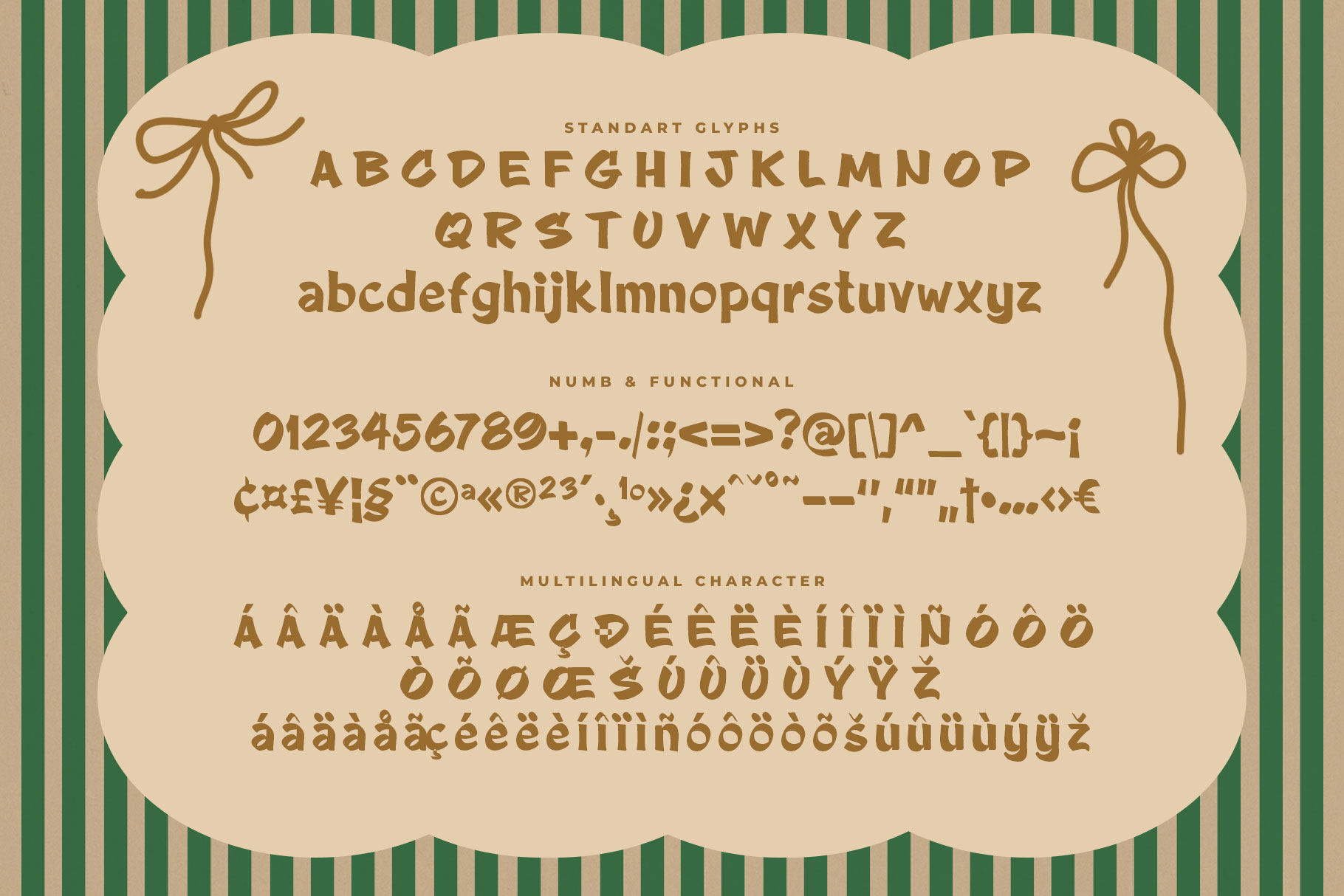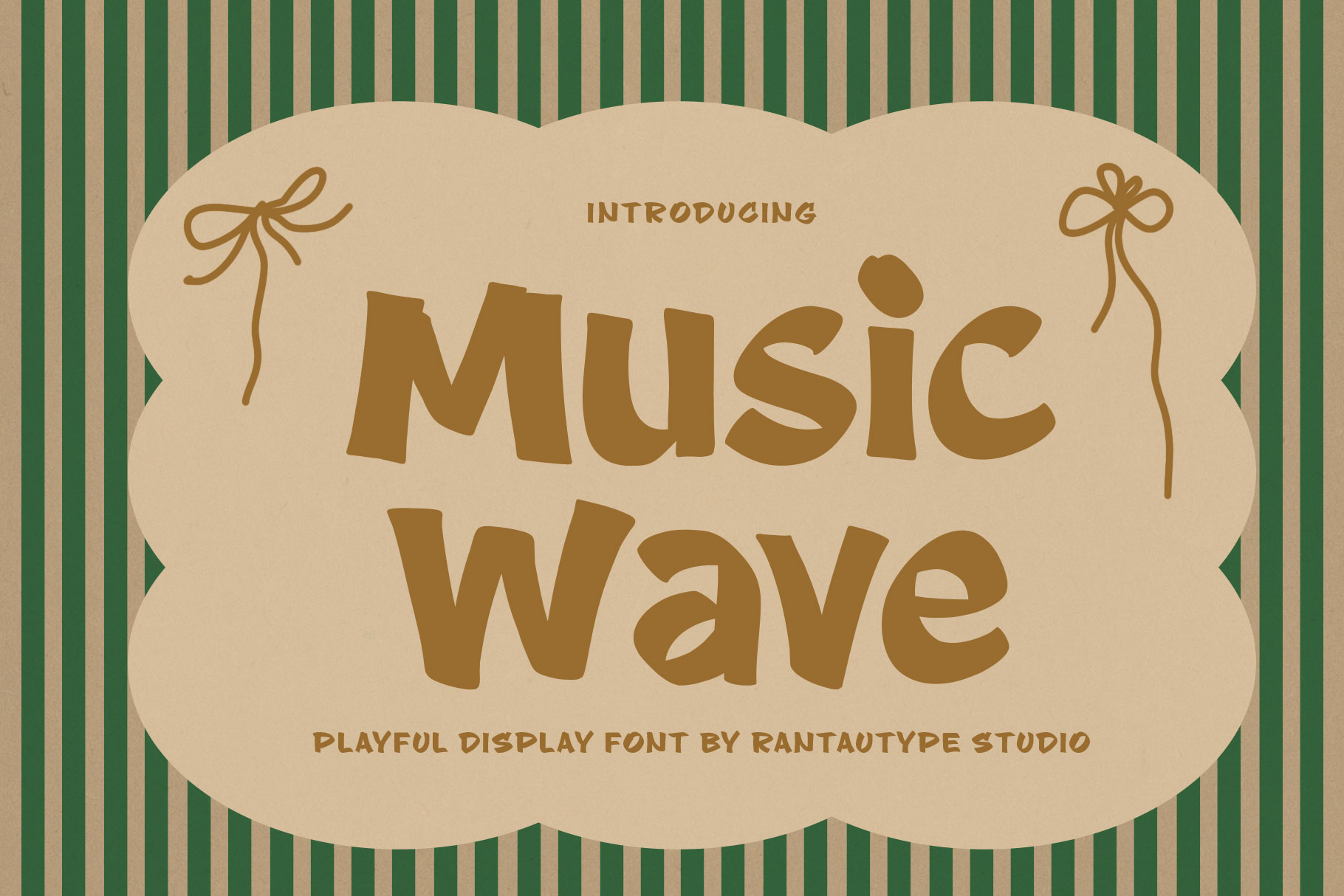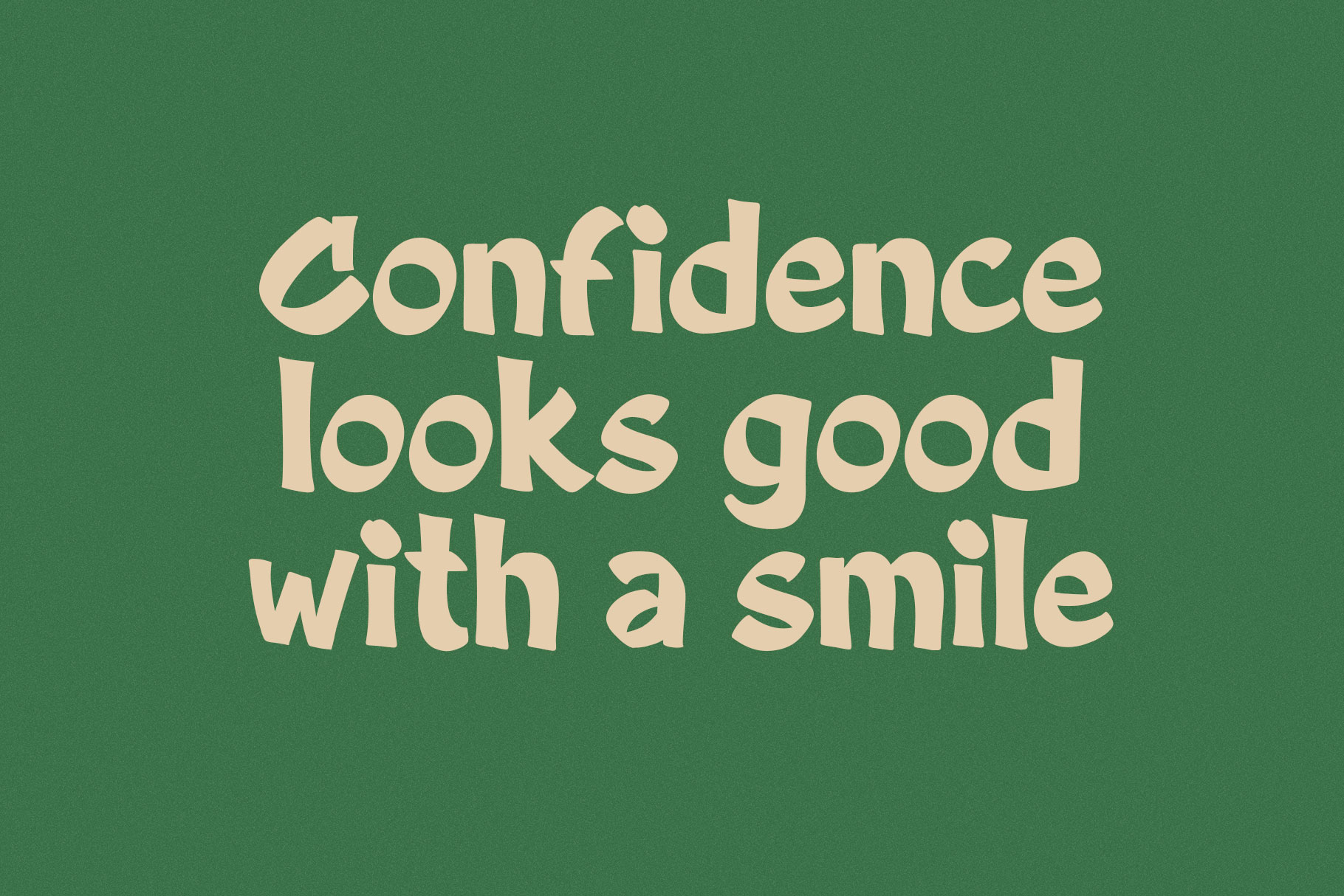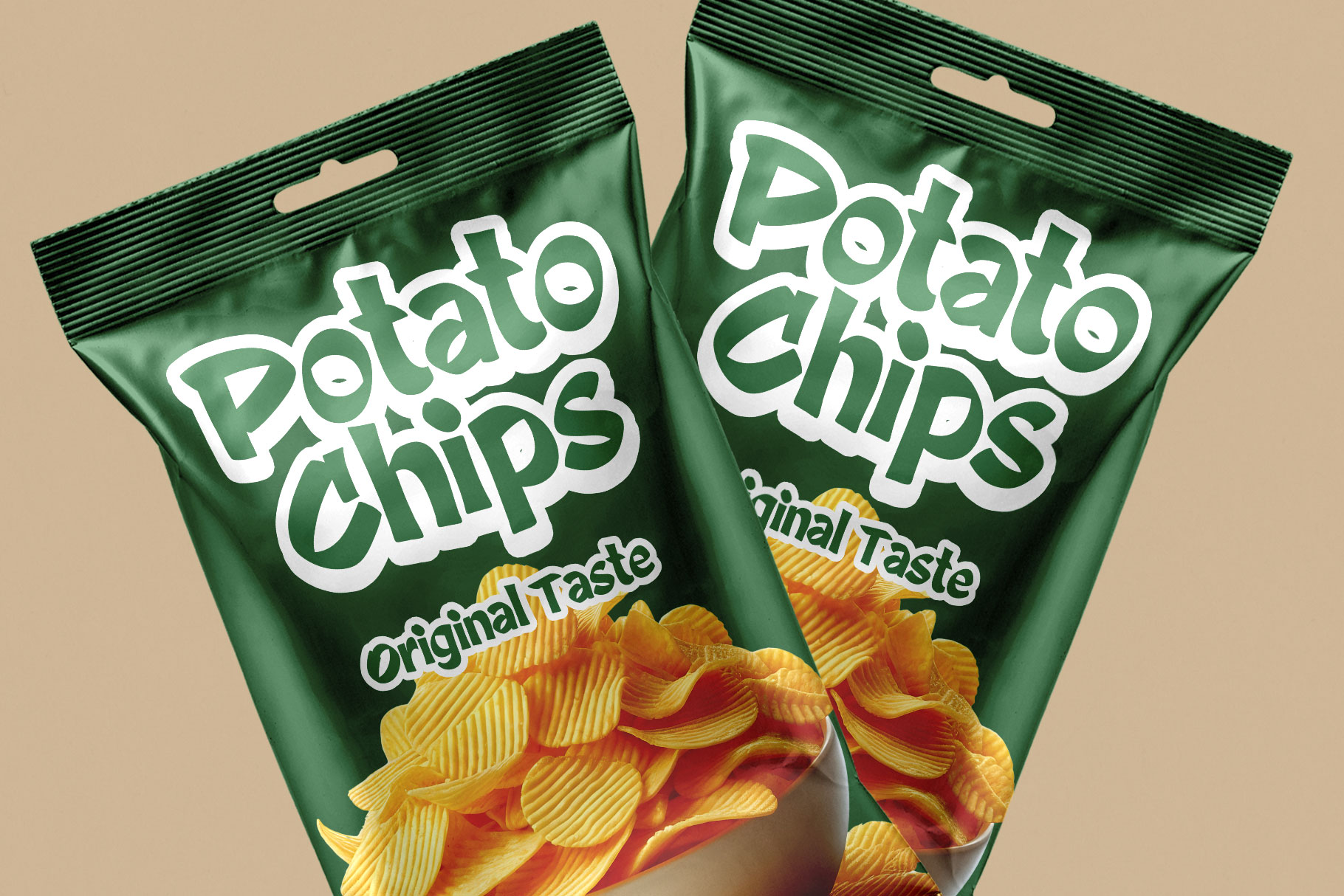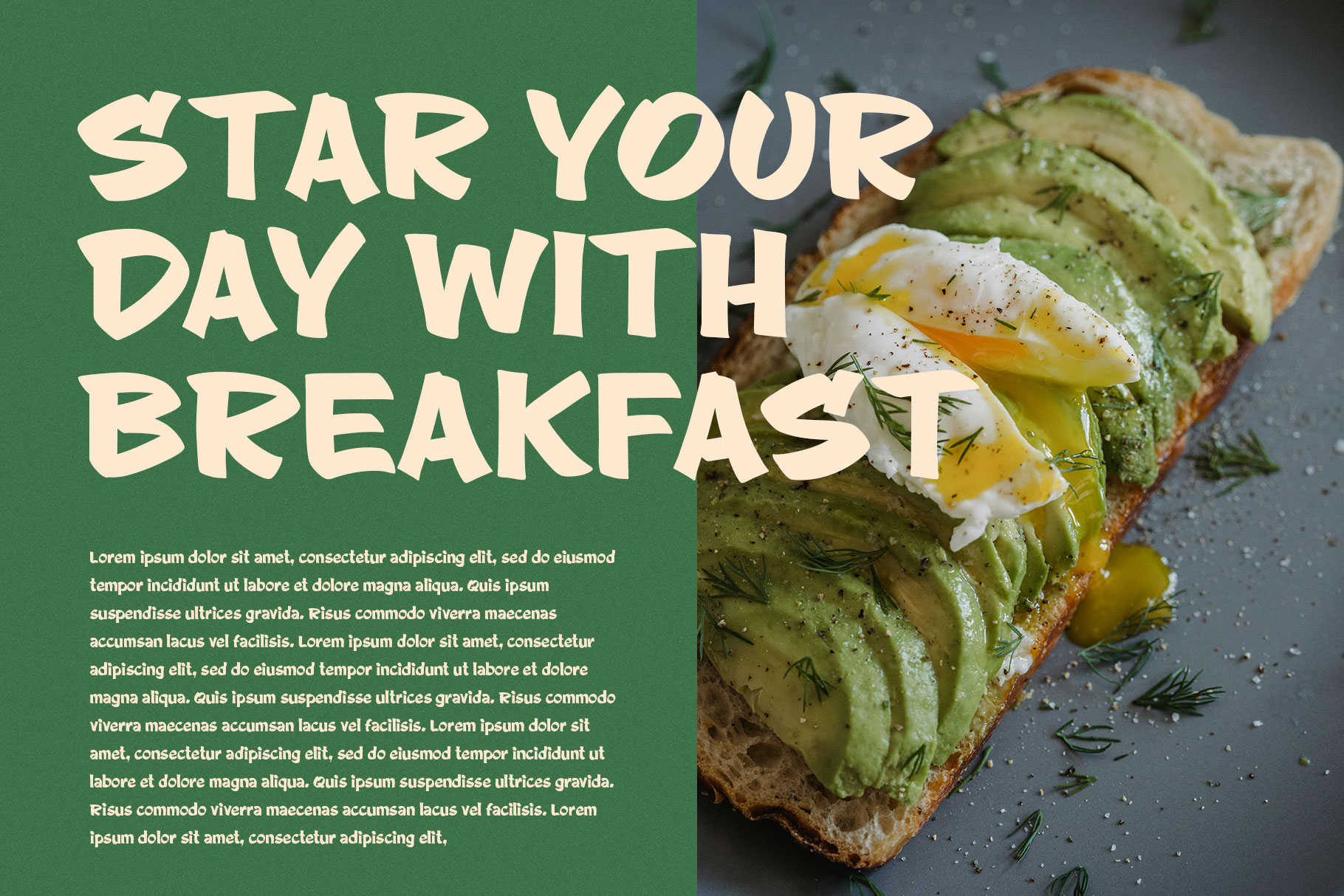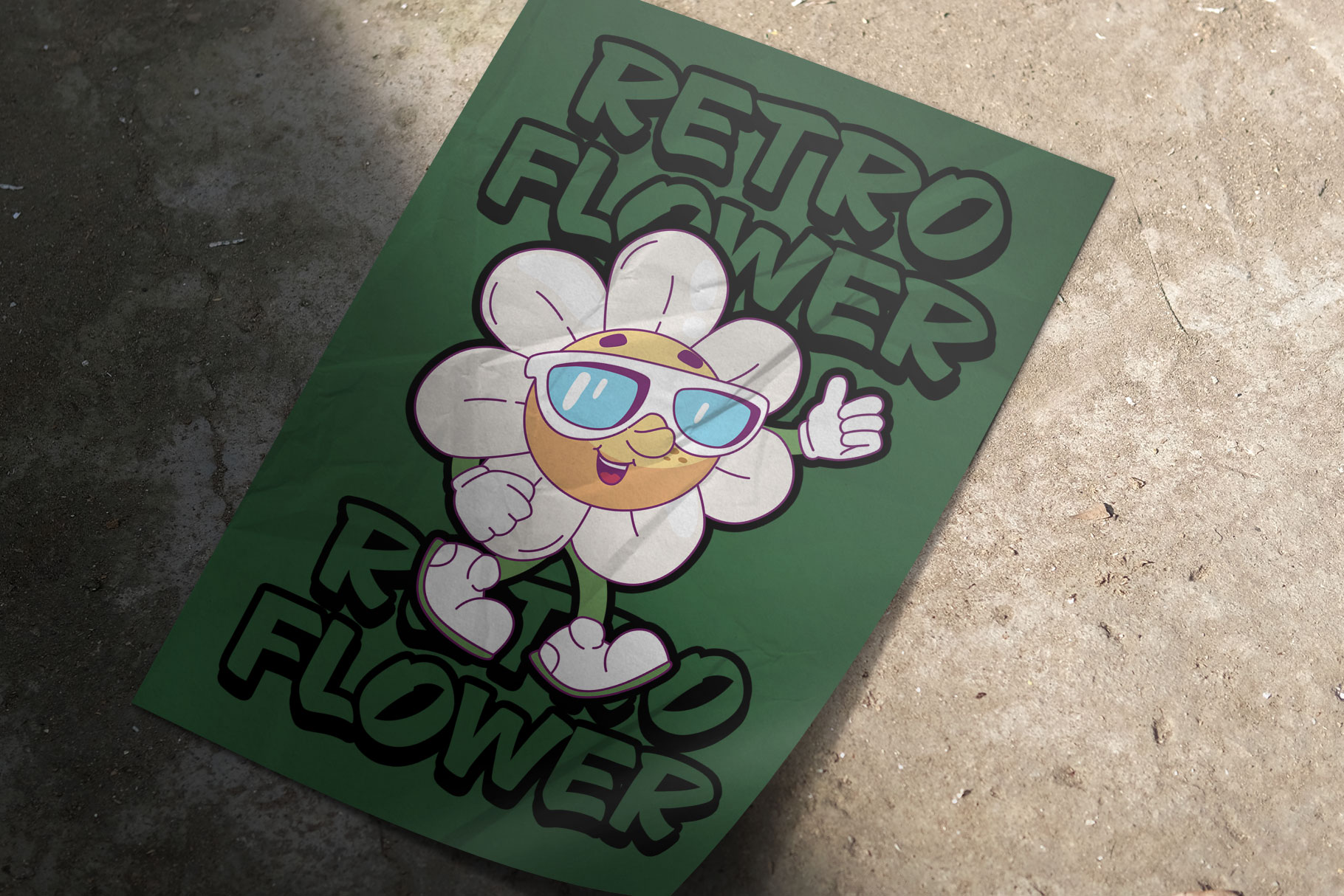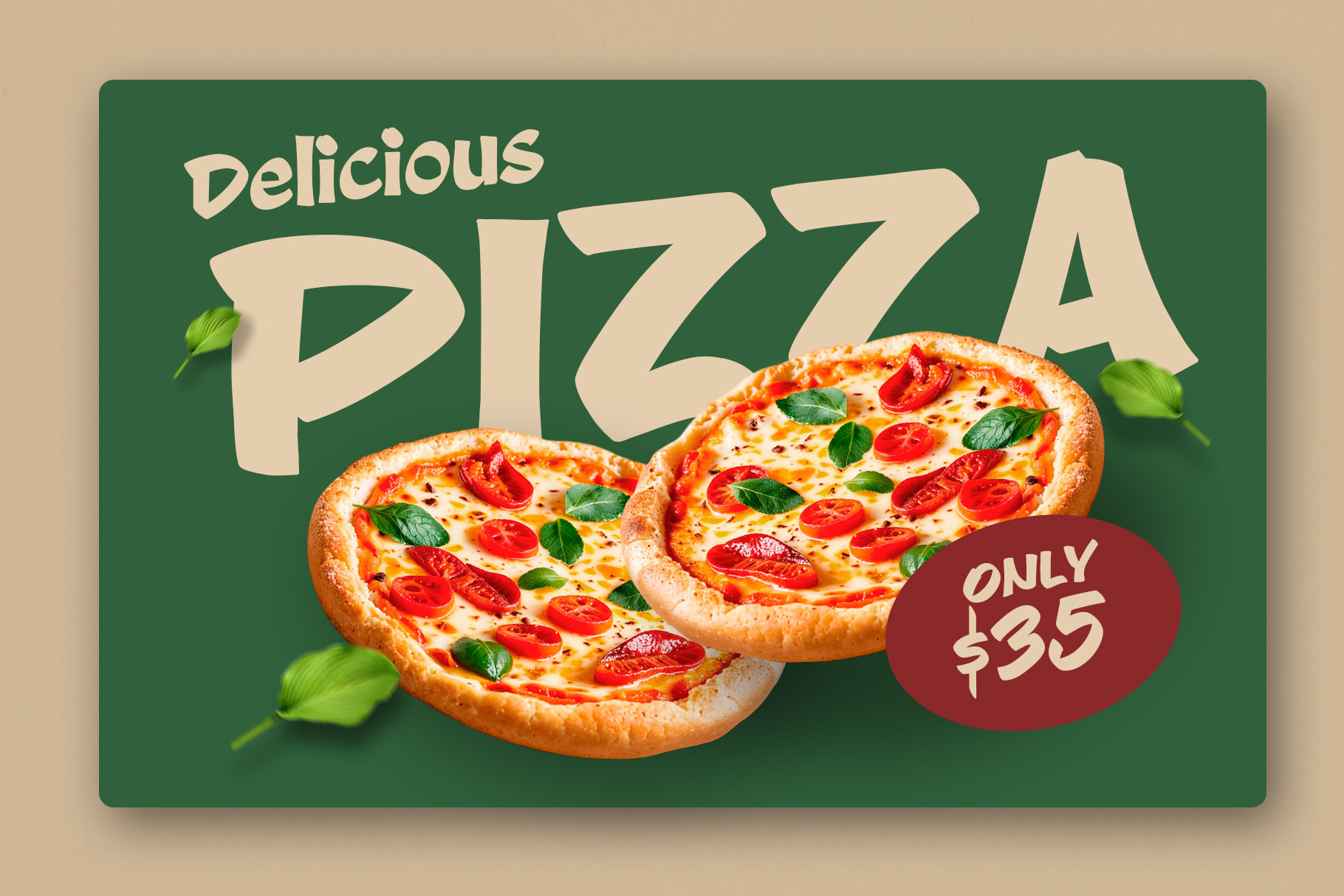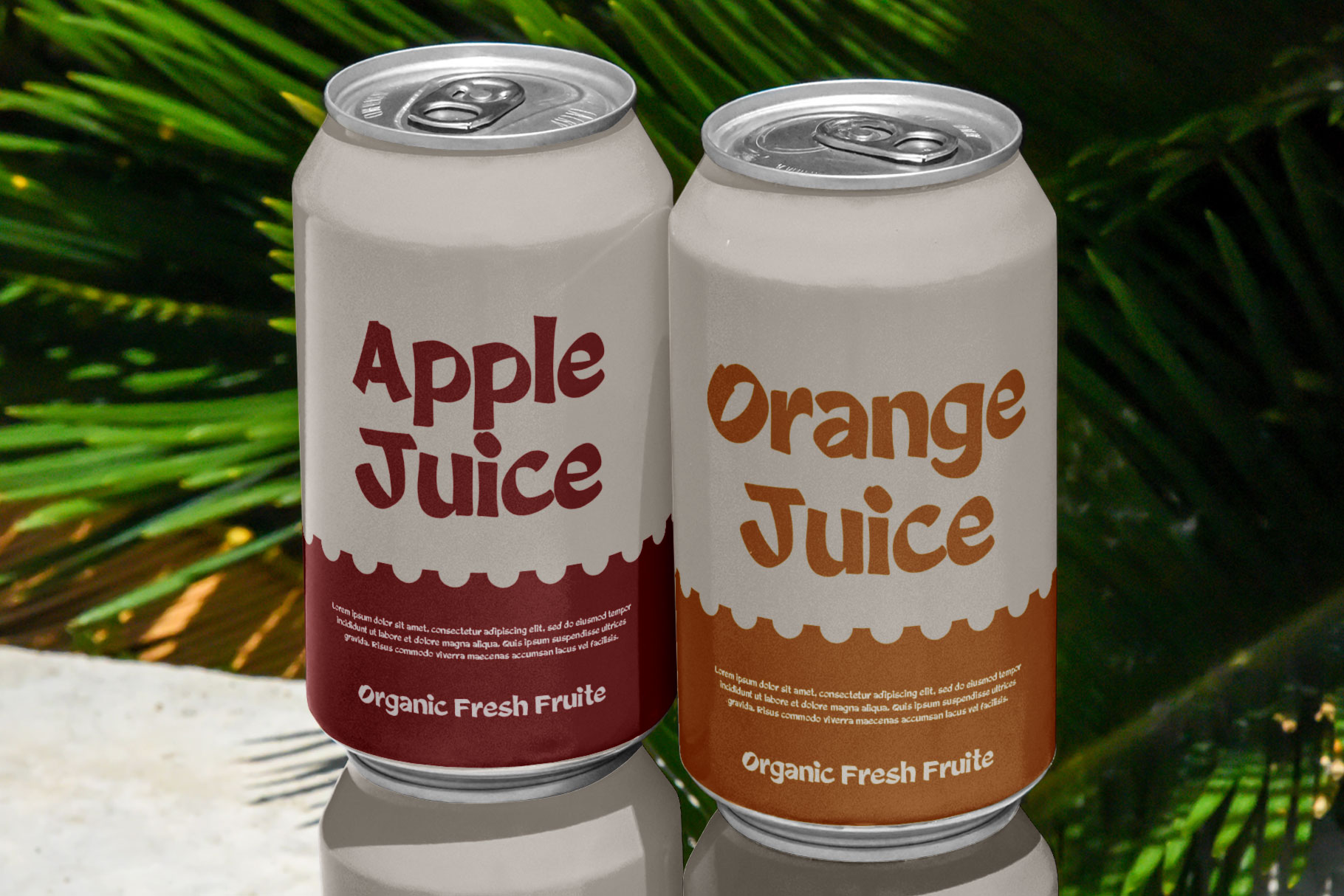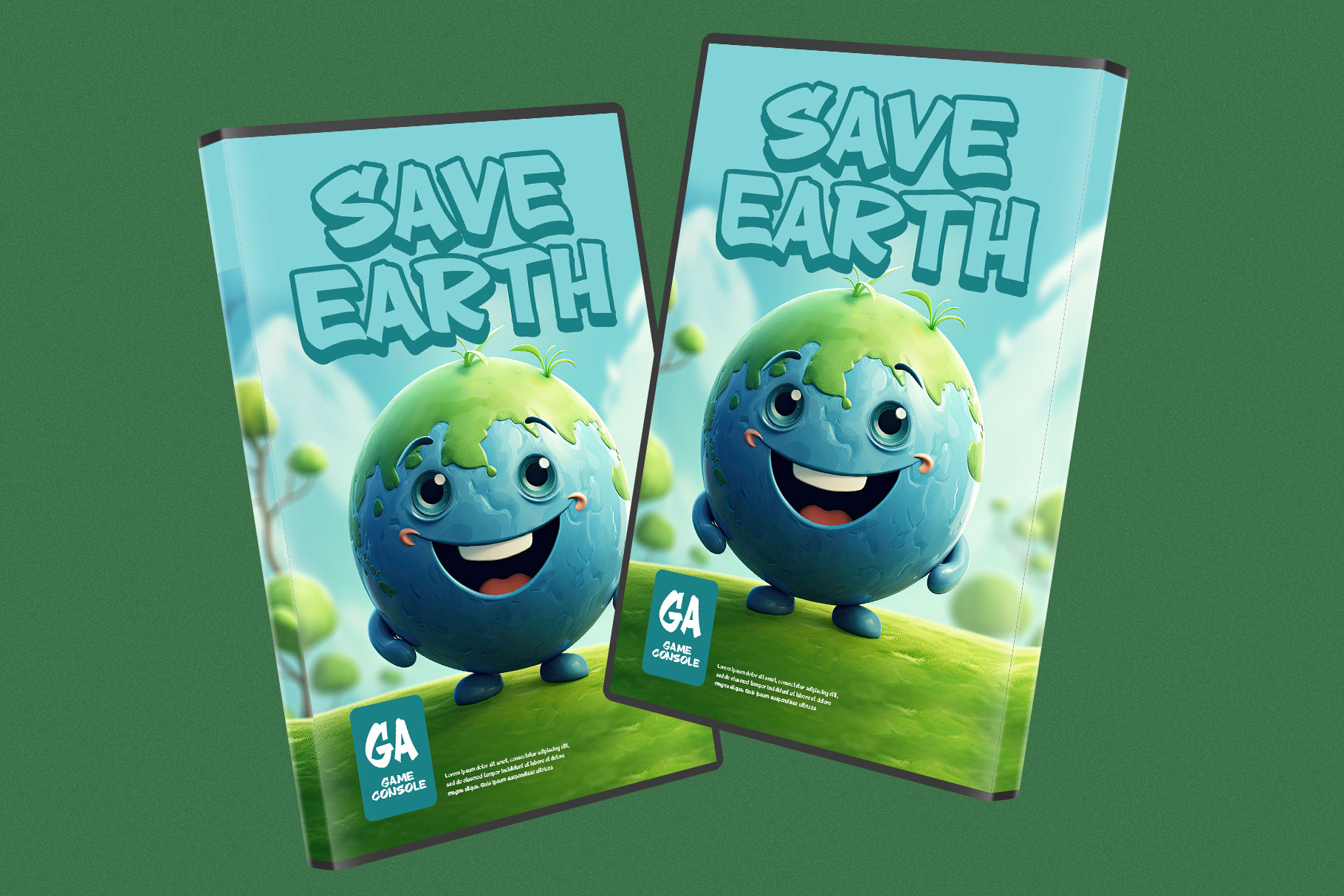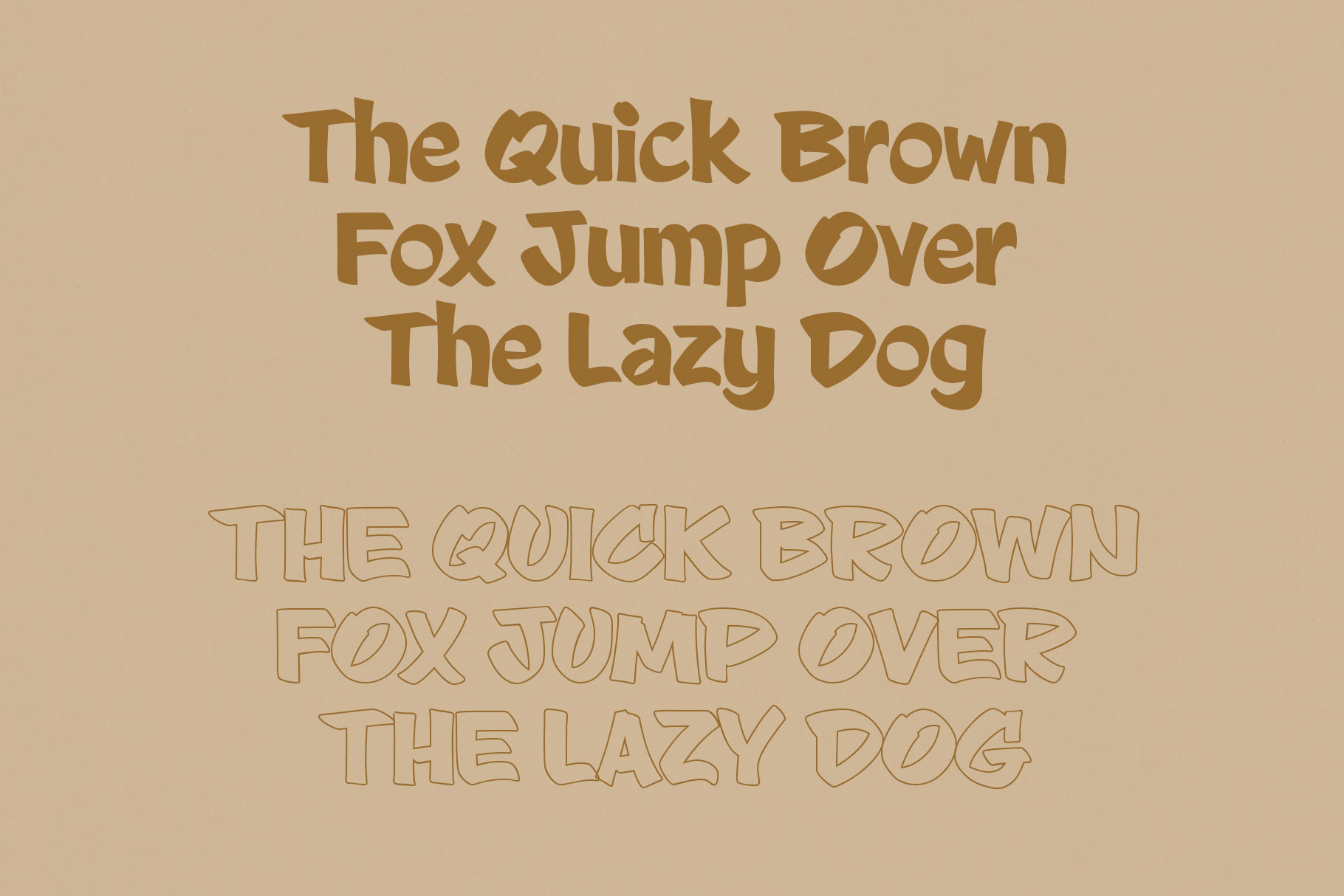
Music Wave Playful Display Font
Music Wave is playful font come with joy and fun character. Music Wave is a perfectly choice for any creative endeavor, chic, lifestyle design such as logotype, advertisements, watermark on photography, stationery, branding project, display and magazine, invitation, corporate brand, product design, label, business project and many other project with funcy touch.